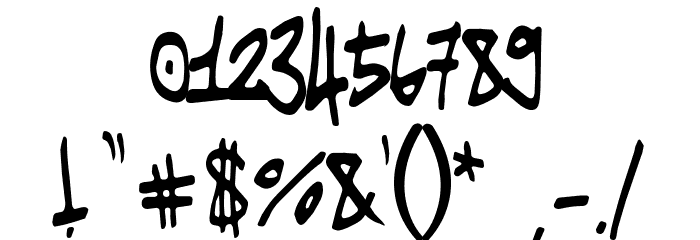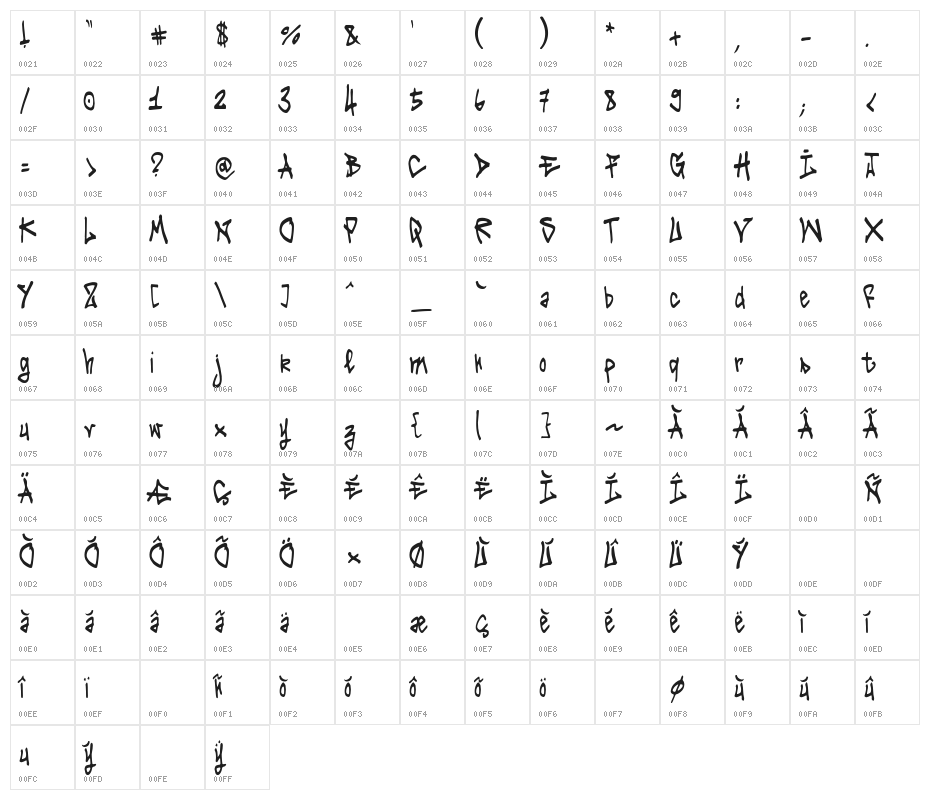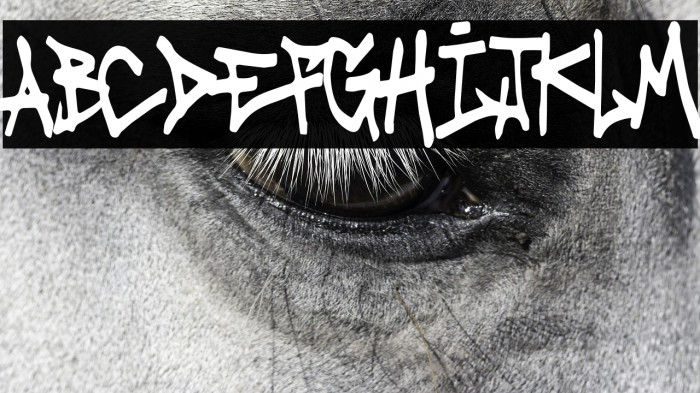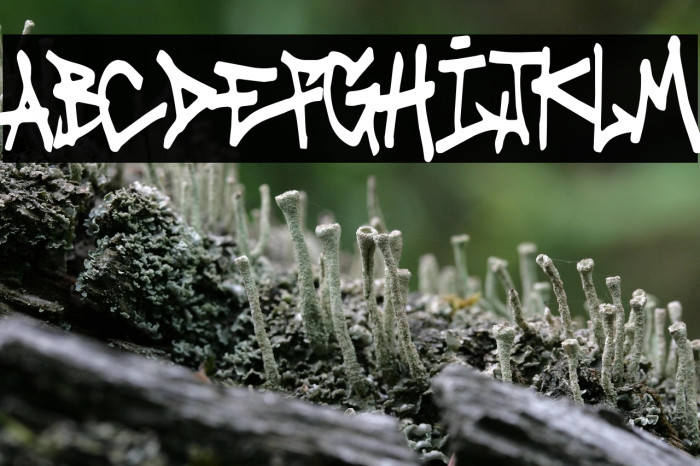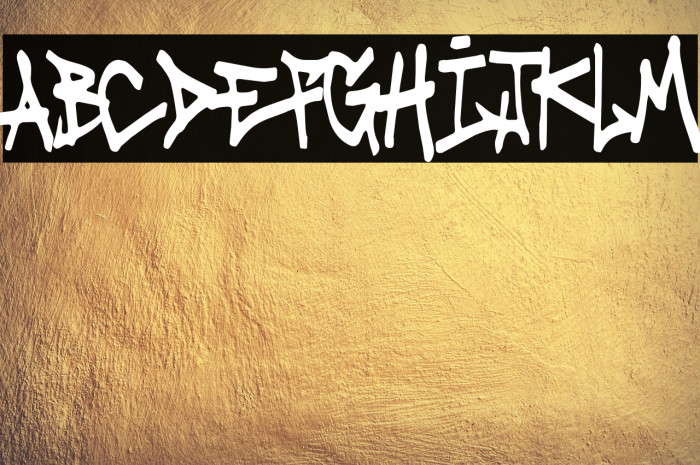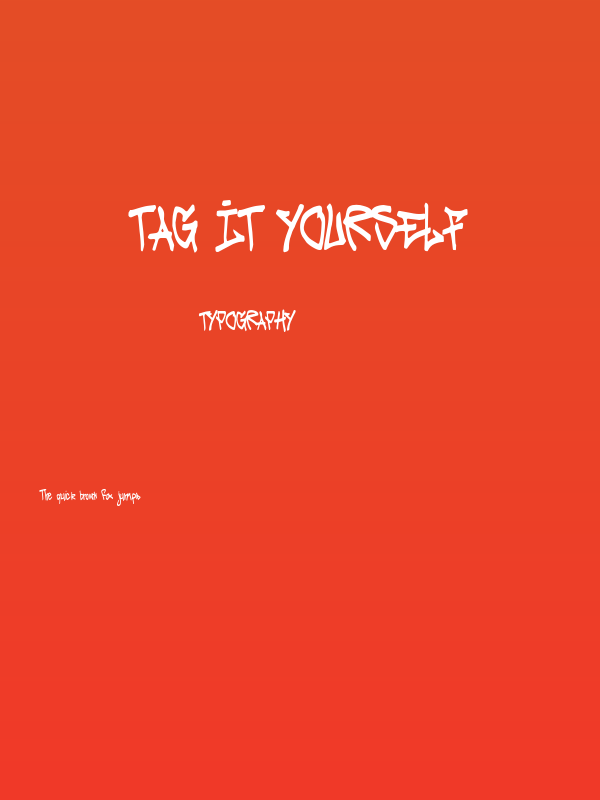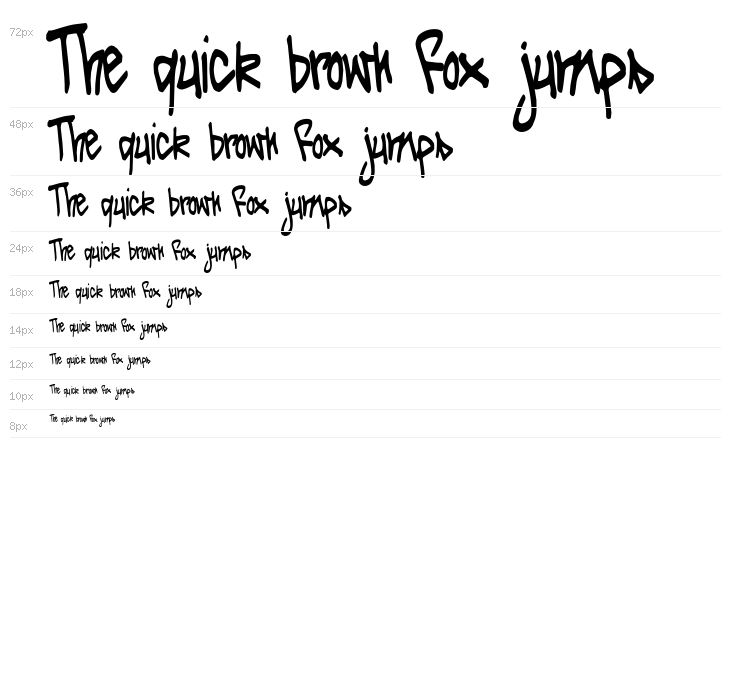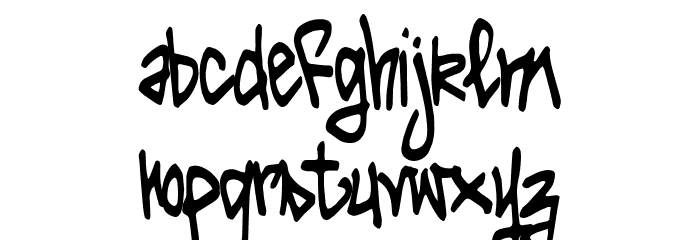
Tag It Yourself Font
Tag It Yourself Description
This font exudes a bold, urban graffiti style, characterized by its dynamic and energetic strokes. The letters are irregular and freeform, capturing the essence of street art with a sense of movement and spontaneity. The uppercase and lowercase letters maintain a consistent style, with angular lines and sharp edges that give them a raw, edgy appearance. Numbers and special characters follow the same aesthetic, making the font suitable for creative and unconventional projects. The overall look is rebellious and artistic, perfect for making a statement.
| Overall Style | Urban, Graffiti, Edgy |
| Use Case | Logos, Posters, Album Covers |
| Proposed Projects | Ideal for street art-inspired designs, music album covers, urban-themed posters, and edgy branding projects. |